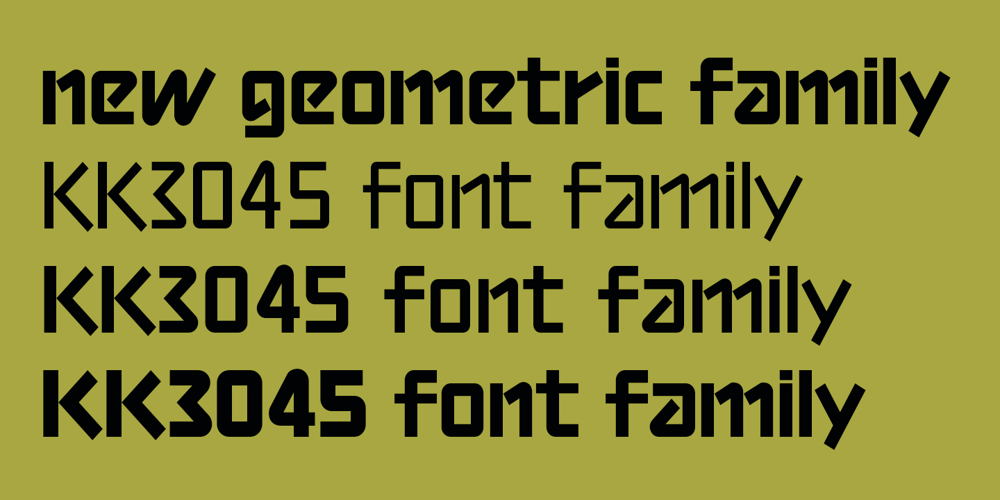
KK3045 Pro
KK3045 Pro font
KK3045 Pro Font Family was designed by Kuncho Kunev and published by HS Fonts. KK3045 Pro contains 3 styles and family package options. The font family KK30/45 is available in 3 weights: Light, Regular, and Bold.Type Designer: Kuncho KunevThe name of family – KK30/45 is from the first letters of the designer’s name (K)uncho (K)unev and from the main angles of the slanted stems – 30° and 45°.Release date: December, 2001 HermesSOFT Ltd.The design of КК30/45 incorporates a geometric variety of shapes, and have been originally designed in such a way that all slanted stems are 30° and 45°,The very high x-height and low bottom parts allow typesetting with almost 100% leading.КК30/45 is a display face suited best to sizes 16-18 point and above.There are included also all Cyrillic vowels with accents that are really necessary for the professional typesetting in Cyrillic languages.Supported Languages: Western Europe (Greek not included), Central/Eastern Europe, Baltic, Turkish, Romanian, Cyrillic.Supported Code Pages: Macintosh and Windows, any for above languages.Opentype features includes kern, fractions, ordinals, superscripts.